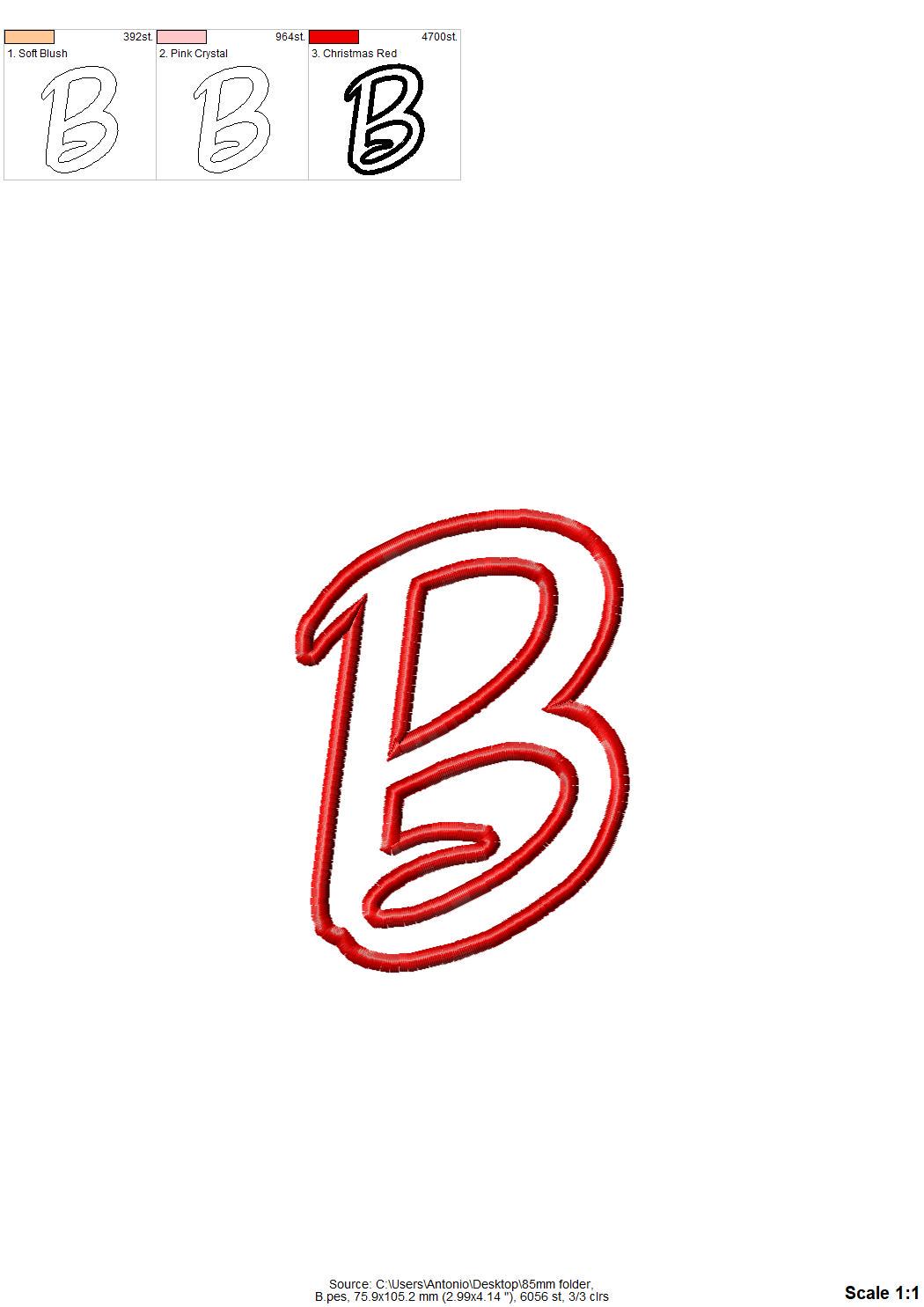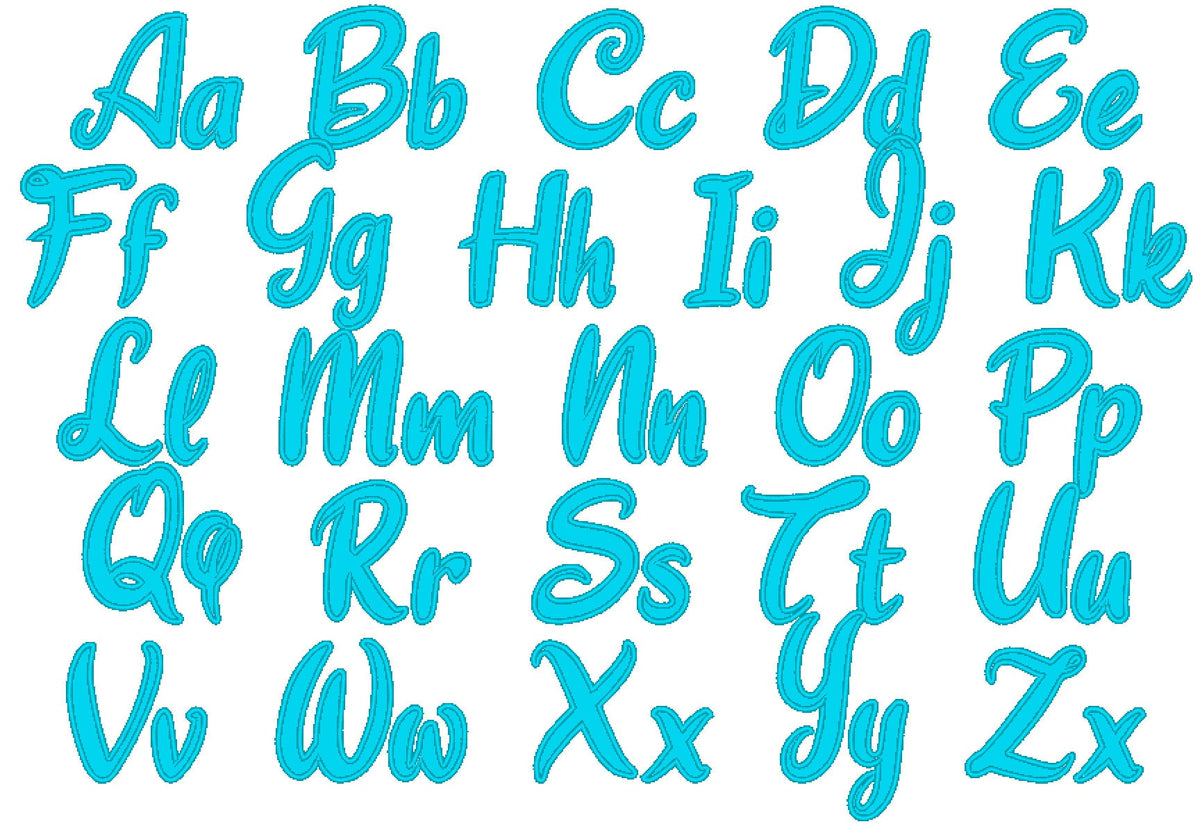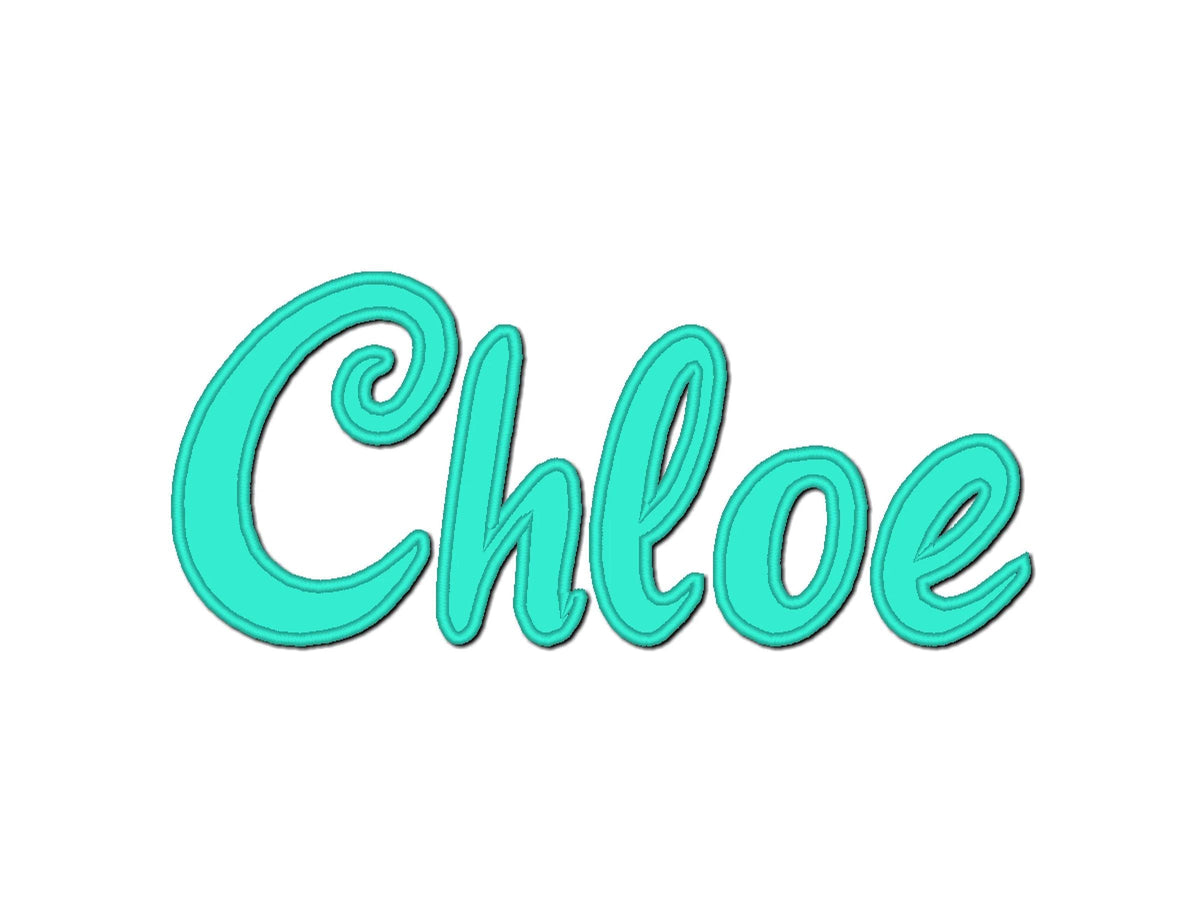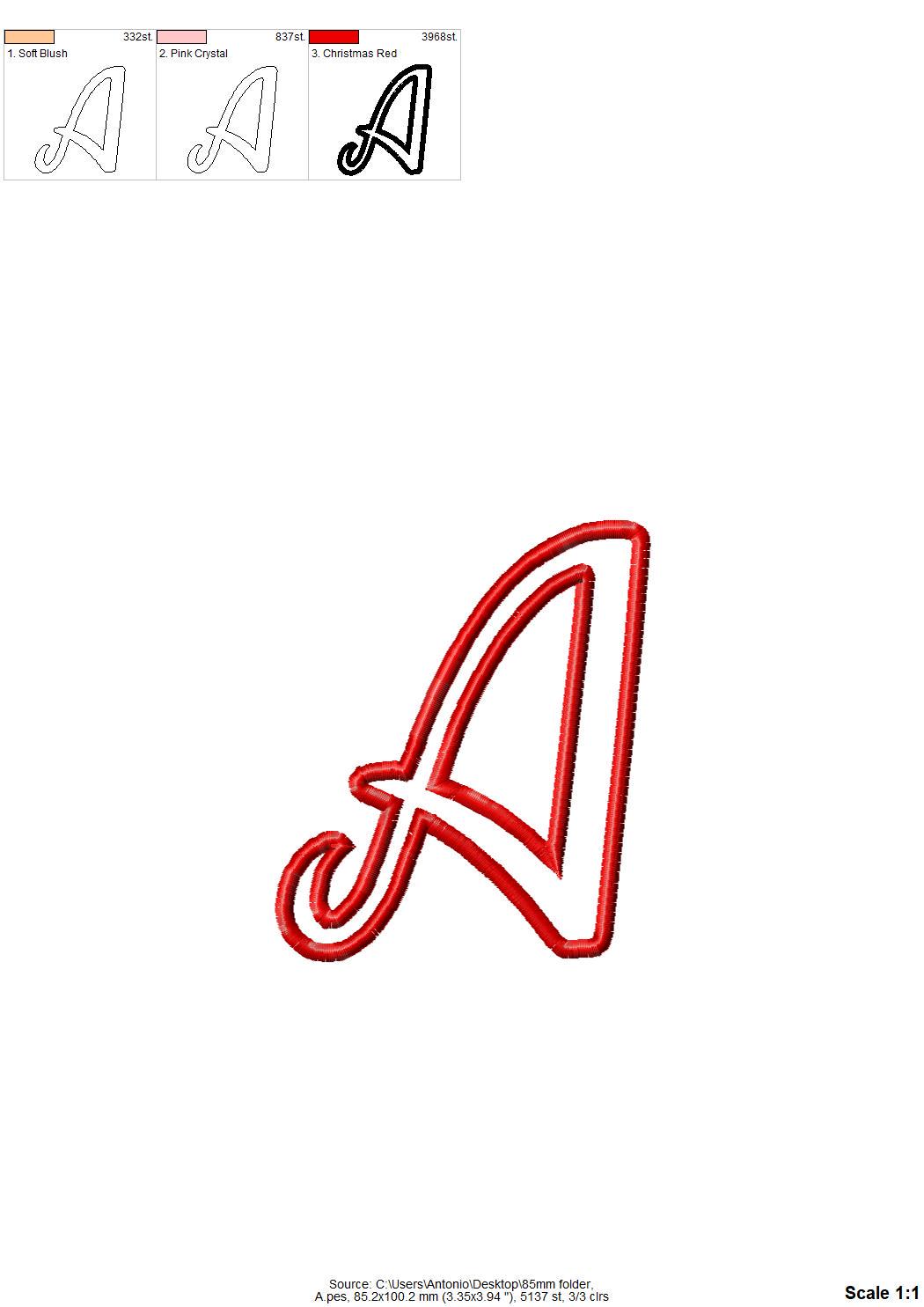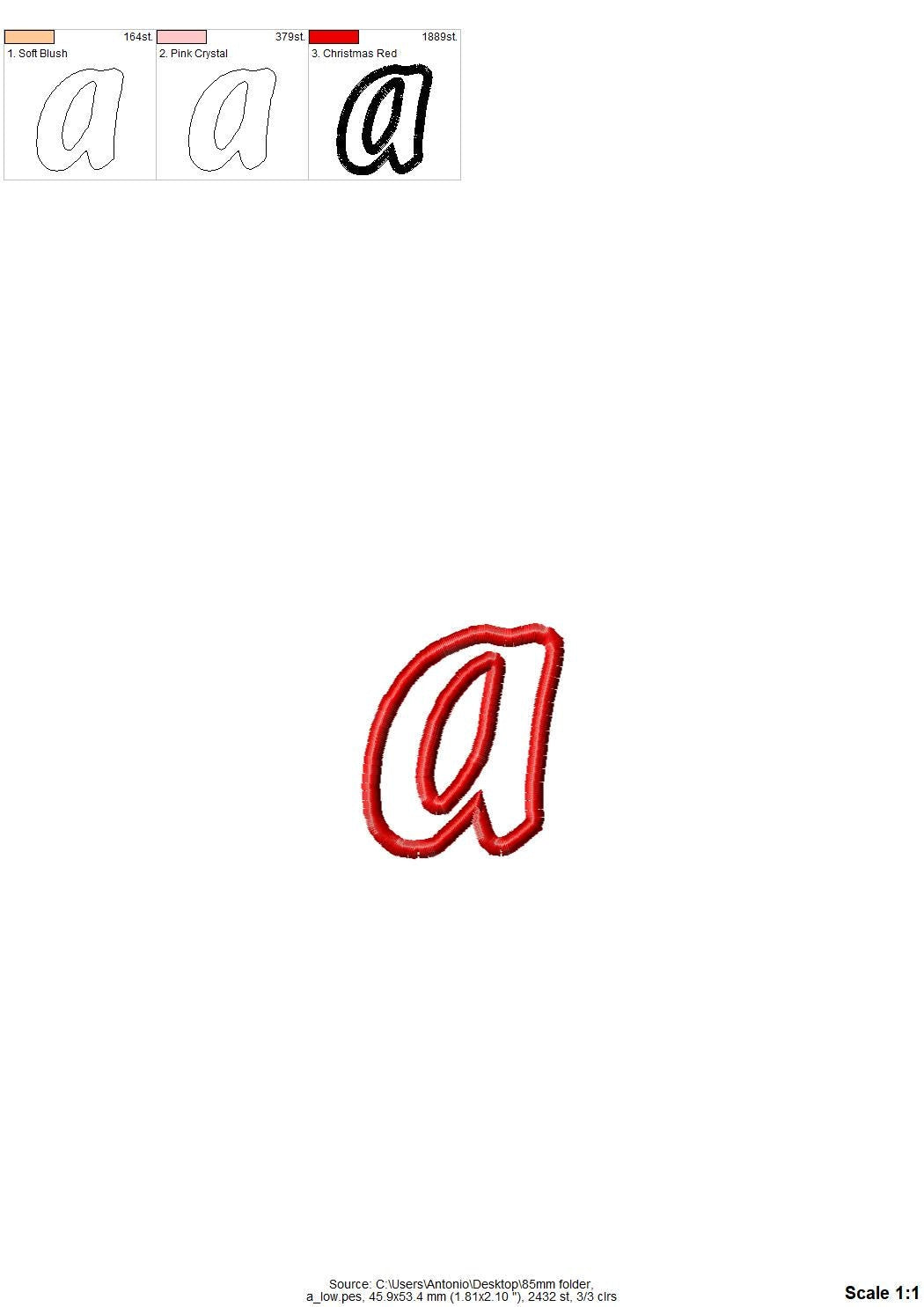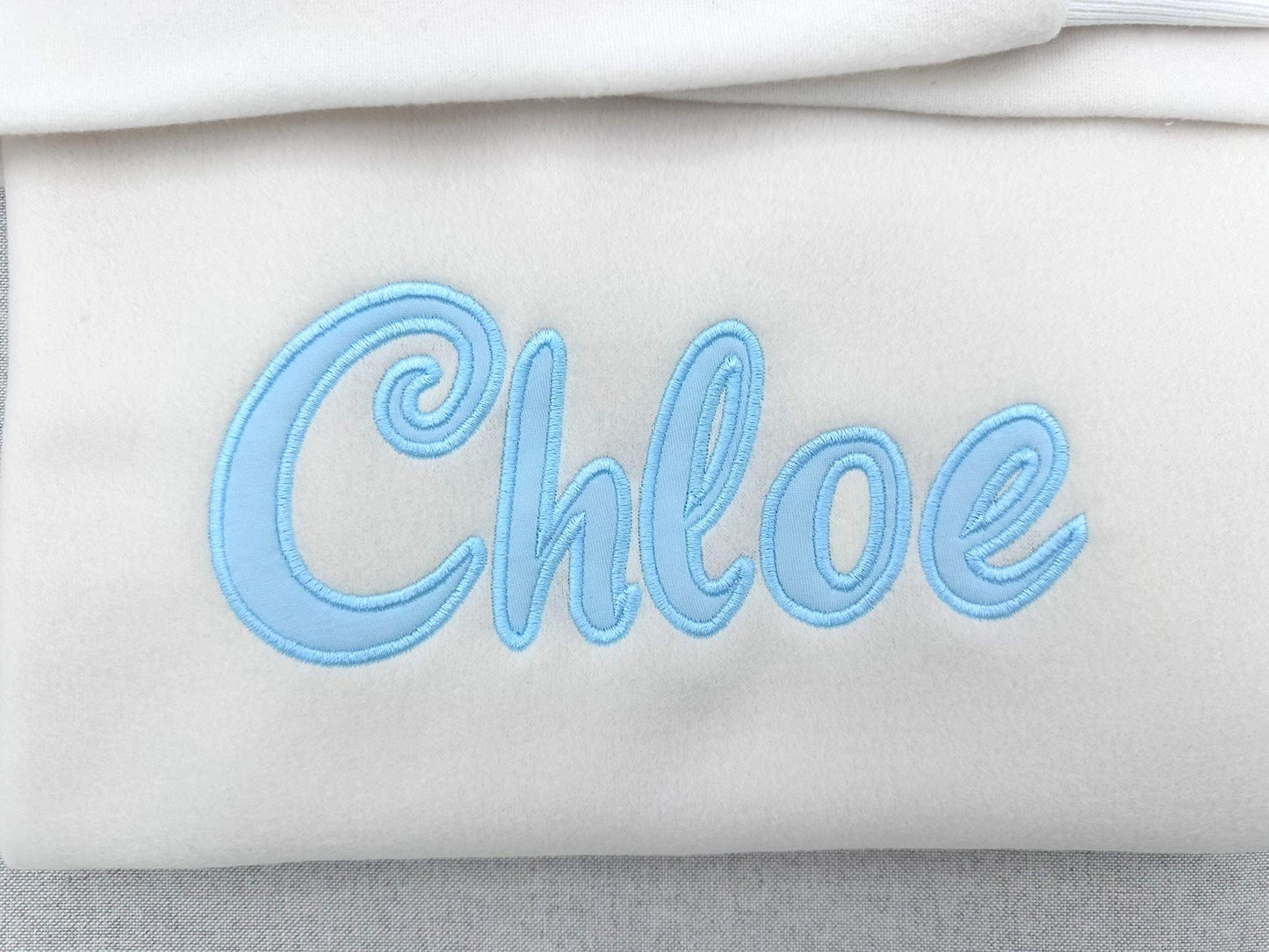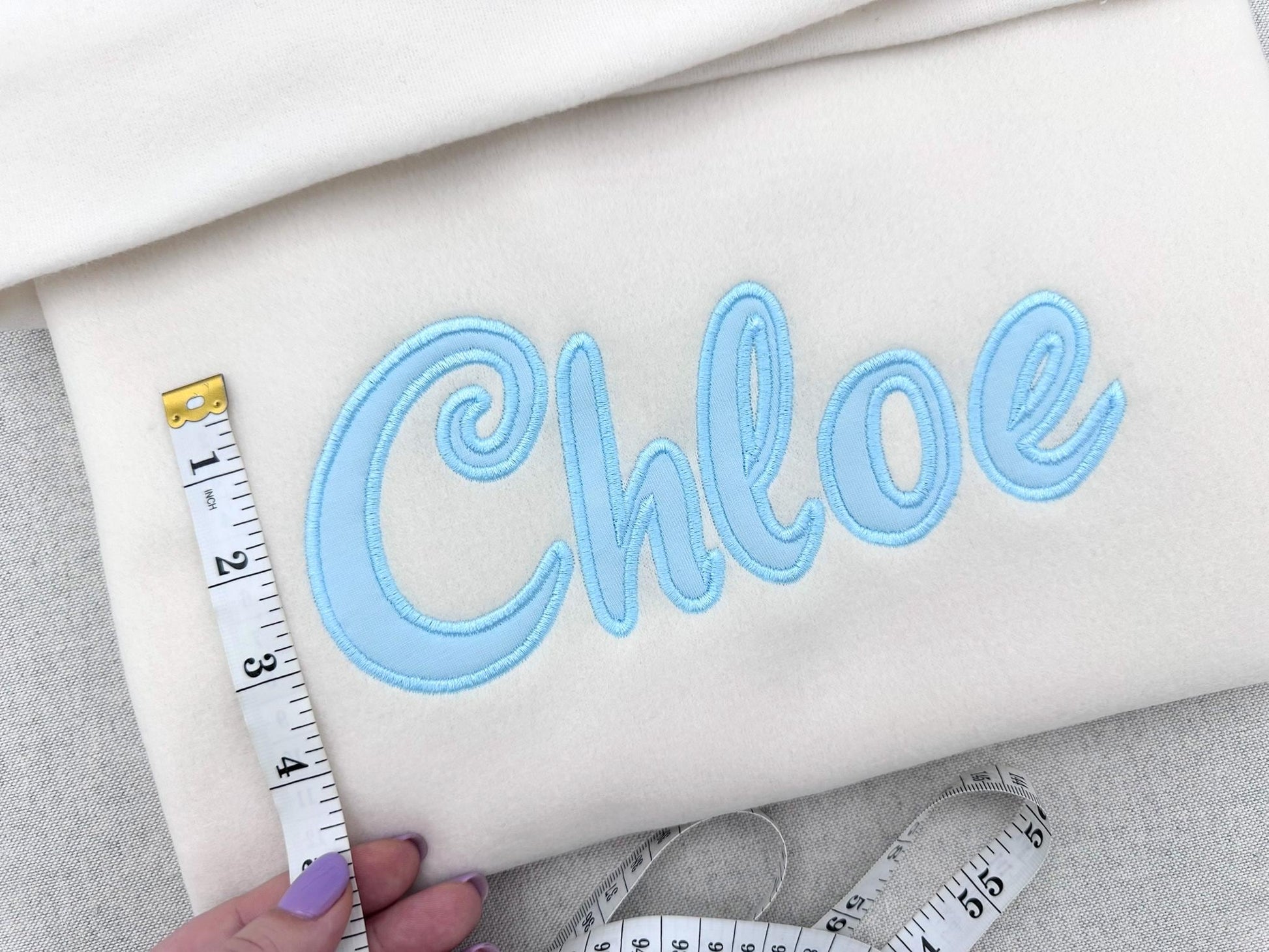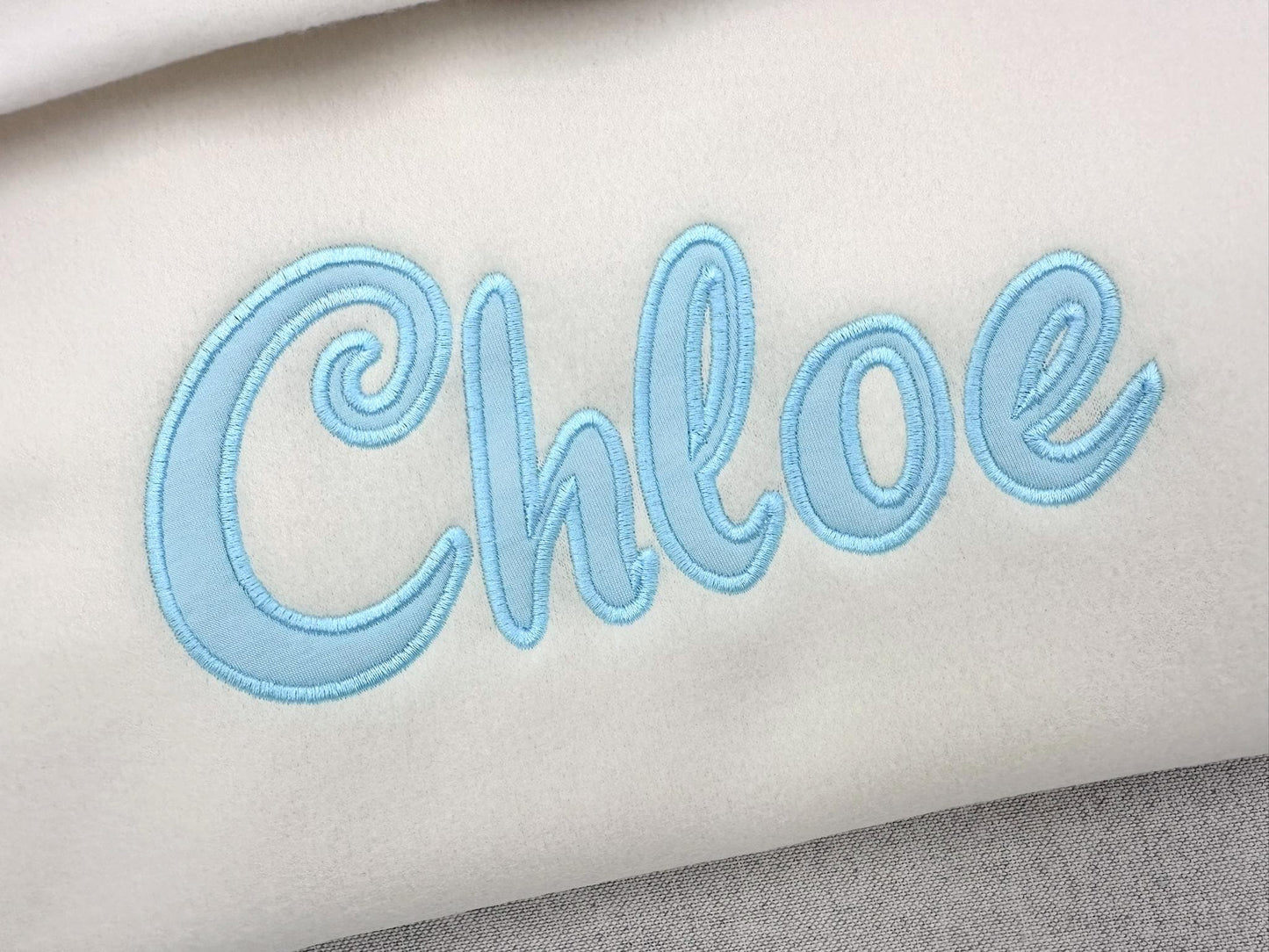
Handwritten Font Applique
Or click to open the linkA handwritten calligraphy applique font with a satin stitch outline. Elegant for names, monograms, pillows and gifts.
The letters come in seven sizes: 2, 2.5, 3, 3.5, 4, 4.4 and 4.6 inches. Applique letters in a calligraphy style, finished with a satin stitch outline. Includes uppercase and lowercase letters A to Z.
- Calligraphy applique font, satin stitch outline
- Uppercase and lowercase letters A to Z
- 7 sizes, 2 to 4.6 in